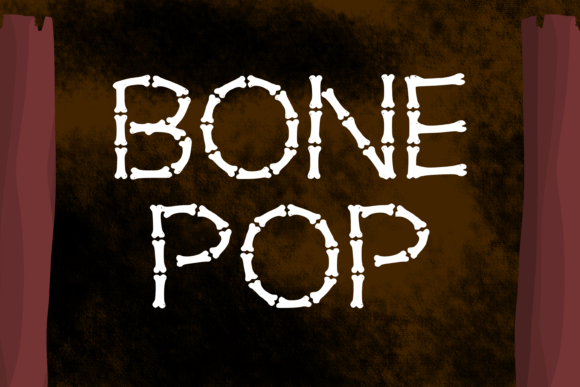
Step into the World of Whimsical Typography
Have you ever found yourself lost in the intricate details of human anatomy, only to be captivated by the mesmerizing shapes of bones? For designers, this fascination can spark a creative moment like no other. And for those who’ve ever yearned to bring a dash of quirkiness to their projects, the Bone Pop Font is the perfect solution.
This uniquely entertaining font is an attention magnet, effortlessly harmonizing with spine-chilling Halloween graphics, terrifying event announcements, and imaginative endeavors that demand a signature touch of whimsy. By incorporating Bone Pop Font into your designs, you can set the perfect uncanny, yet joyful ambiance that will leave a lasting impression on your audience.
Bone Pop Font Key Features
- Font Family: Bone Pop Font is a unique, hand-drawn font designed for creative purposes.
- Unique Characteristics: Bone Pop Font features a distinctive, hand-drawn style with irregular lines and subtle texture, giving it a unique and artistic feel.
Bone Pop Font Review
I recently had the chance to work with the Bone Pop Font, and I must say it’s a font that’s both eye-catching and intriguing. ✨ The unique blend of modern and vintage elements gives it a distinctive look that can add a lot of character to your designs. ✨ The font’s versatility is also a major plus, as it can be used for a wide range of applications, from headlines to body text.
Here are some specific strengths and weaknesses I observed:
- ✨ The font’s bold weight is particularly effective for headlines, and the subtle texture adds a nice tactile feel.
- ✨ The font’s x-height is well-proportioned, making it easy to read even at smaller sizes.
- ⚠️ The font’s italic weight can sometimes look a bit awkward, especially when used for body text.
- ⚠️ The font may not be suitable for projects that require a more formal or traditional look.
Overall, I think the Bone Pop Font is a solid choice for designers looking to add some visual interest to their work. While it may not be perfect, its unique style and versatility make it a great option for projects that require a bit of flair.
Alternatives to Bone Pop Font
Bone Pop Font is a sans-serif font known for its modern and playful feel. However, it may not be the best choice for every design project. Here are some alternatives to consider:
Open Sans is a popular sans-serif font designed for digital interfaces. It’s highly legible and works well for body text, headings, and titles. Open Sans is a great choice when you need a clean and modern look without the quirky feel of Bone Pop Font.
Comparison: Open Sans is more straightforward and versatile than Bone Pop Font, making it a better choice for projects that require a neutral tone.
Lato is a sans-serif font that combines modern and elegant elements. It’s highly readable and works well for both digital and print projects. Lato is a great choice when you need a sophisticated look without the boldness of Bone Pop Font.
Comparison: Lato is more refined and sophisticated than Bone Pop Font, making it a better choice for projects that require a high-end feel.